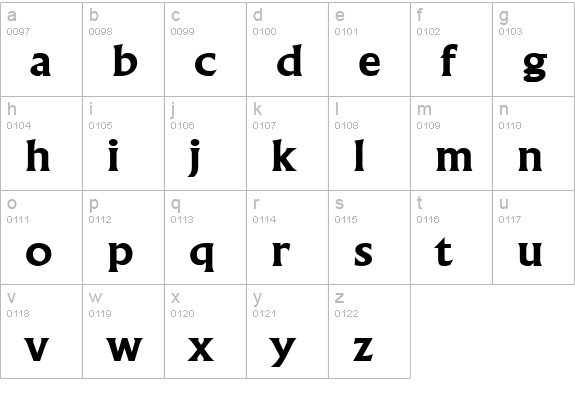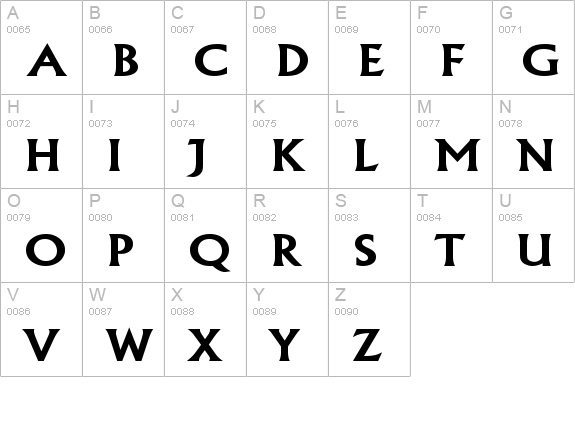
Flair Wide Bold Font Details
Flair Wide Bold is a strong, high-contrast, extended-width variant in the Flair typeface family \xE2\x80\x94 well suited to headlines, attention-grabbing titles, and strong calls-to-action.